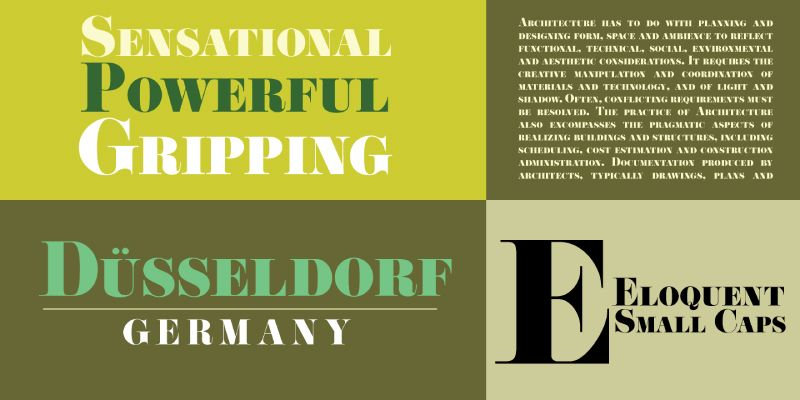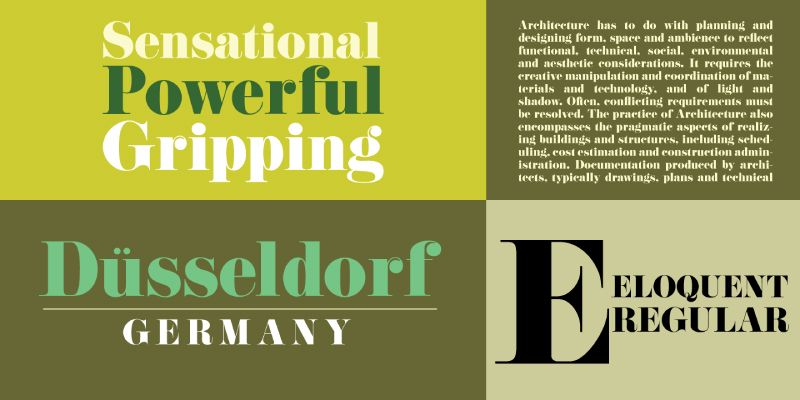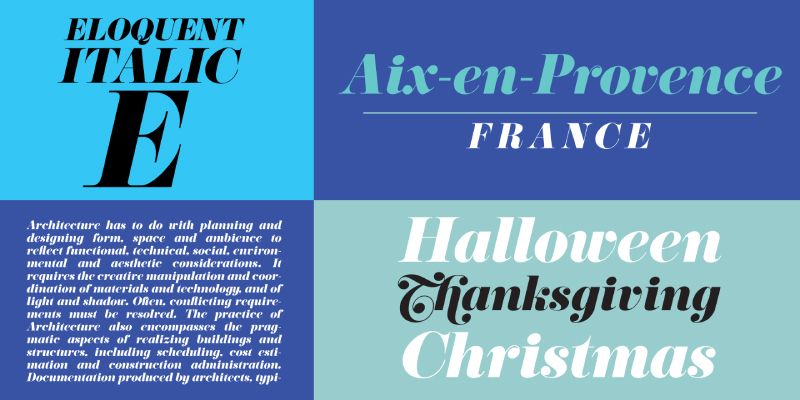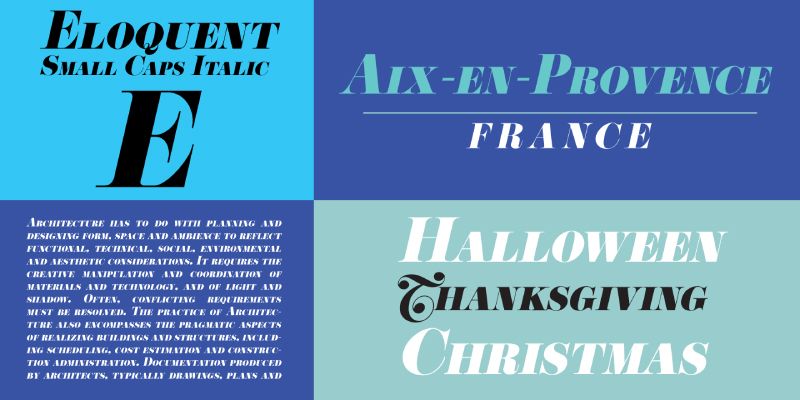
Eloquent is an award-winning display & serif family digitally revived from a font called Pistilli Roman. Jason expanded the original single Roman weight to include italic and small caps weights.
Jukebox is the brainchild of Jason Walcott, longtime type designer. Jason designed his first typeface called “Holiday Times” in the fall of 2000, and that started a long and wonderful journey that lead to the Jukebox of today.
After designing five or six more fonts, Jason started selling his typefaces on MyFonts.com in summer of 2001. At that time, his foundry went under the name of “JAW Fonts”. Several of his type designs quickly became popular on MyFonts.com and the sales grew through late 2002.
In early March of 2003, Walcott received a phone call from the then up-and-coming Veer Inc. Veer was interested in carrying his font library which then consisted of about 50 faces. The deal with Veer blossomed into a whole new venture and JAW Fonts was closed down, retooled and relaunched as Jukebox in June of 2003. The exclusive product of Veer from 2003 to 2015, Jukebox became one of the industry standards in type libraries available. Jukebox fonts have been used on countless products and designs, films, books, television productions and more, by companies such as Disney, HGTV, The Food Network, Disney Theme Parks, Hershey’s, VistaPrint and many others. In 2011 Jason’s Eloquent font family was awarded a spot in the “Best of Typeface Design” in Communications Arts Magazine’s Typography Annual.
On March 31st of 2016, Veer closed its doors forever and curation of the Jukebox library returned to Jason, who is committed to making sure Jukebox will continue to provide the design world with high-quality, professional type.